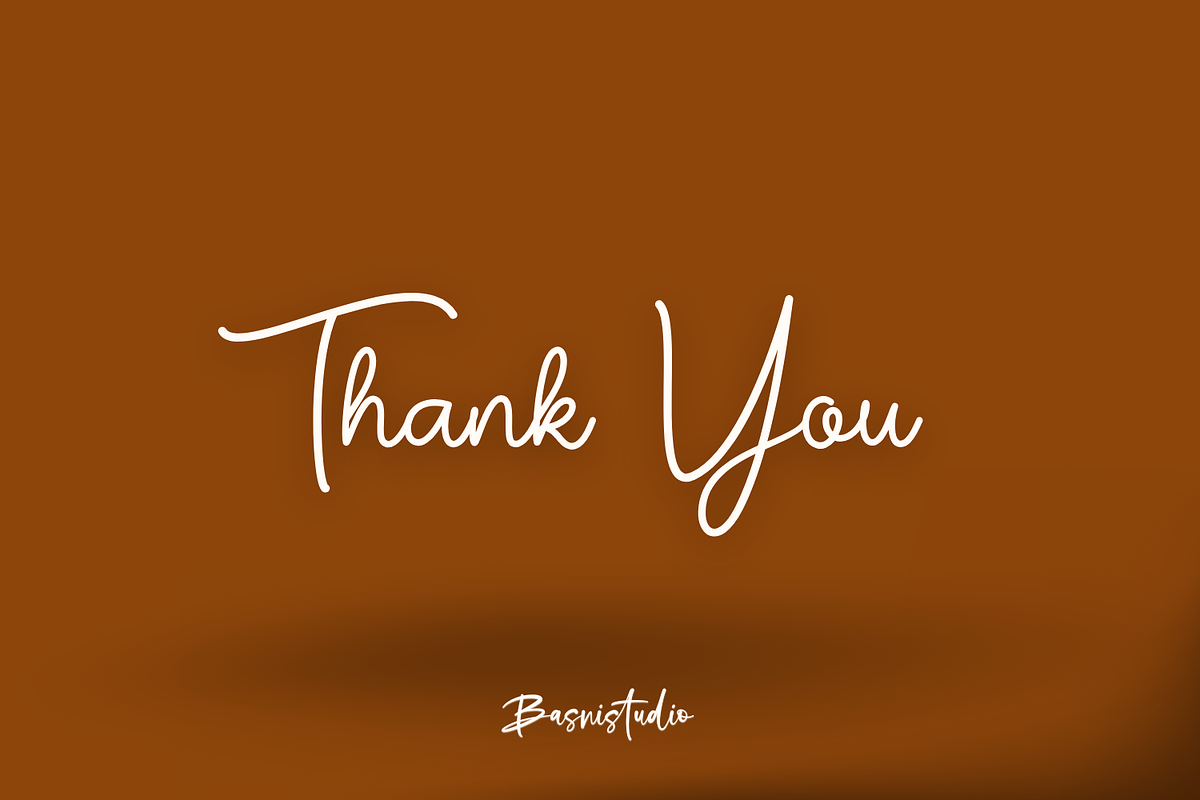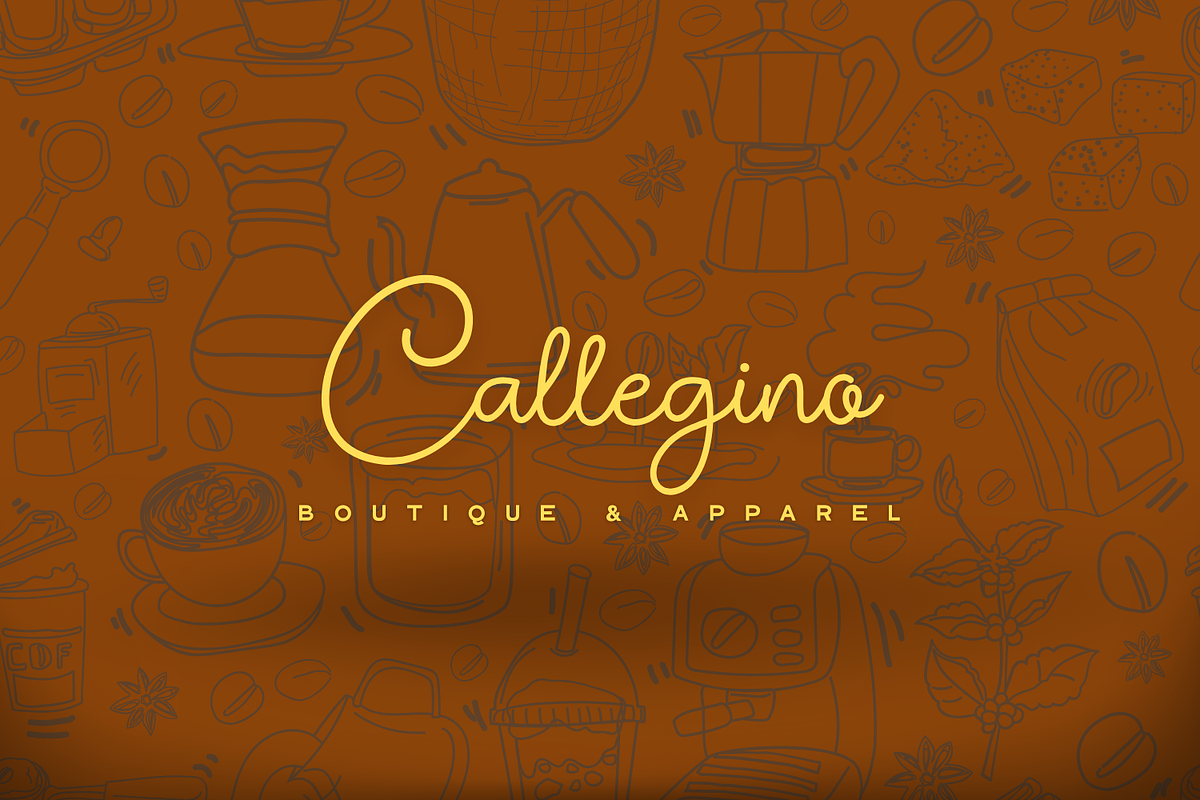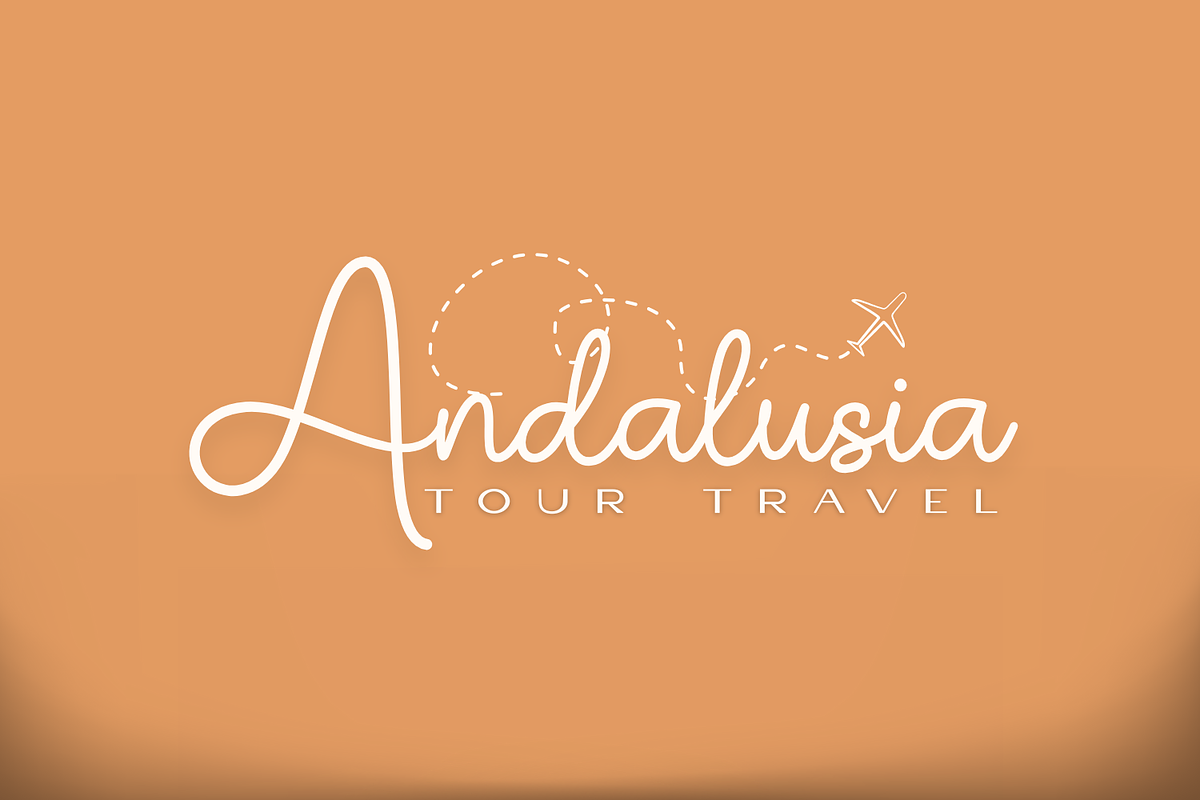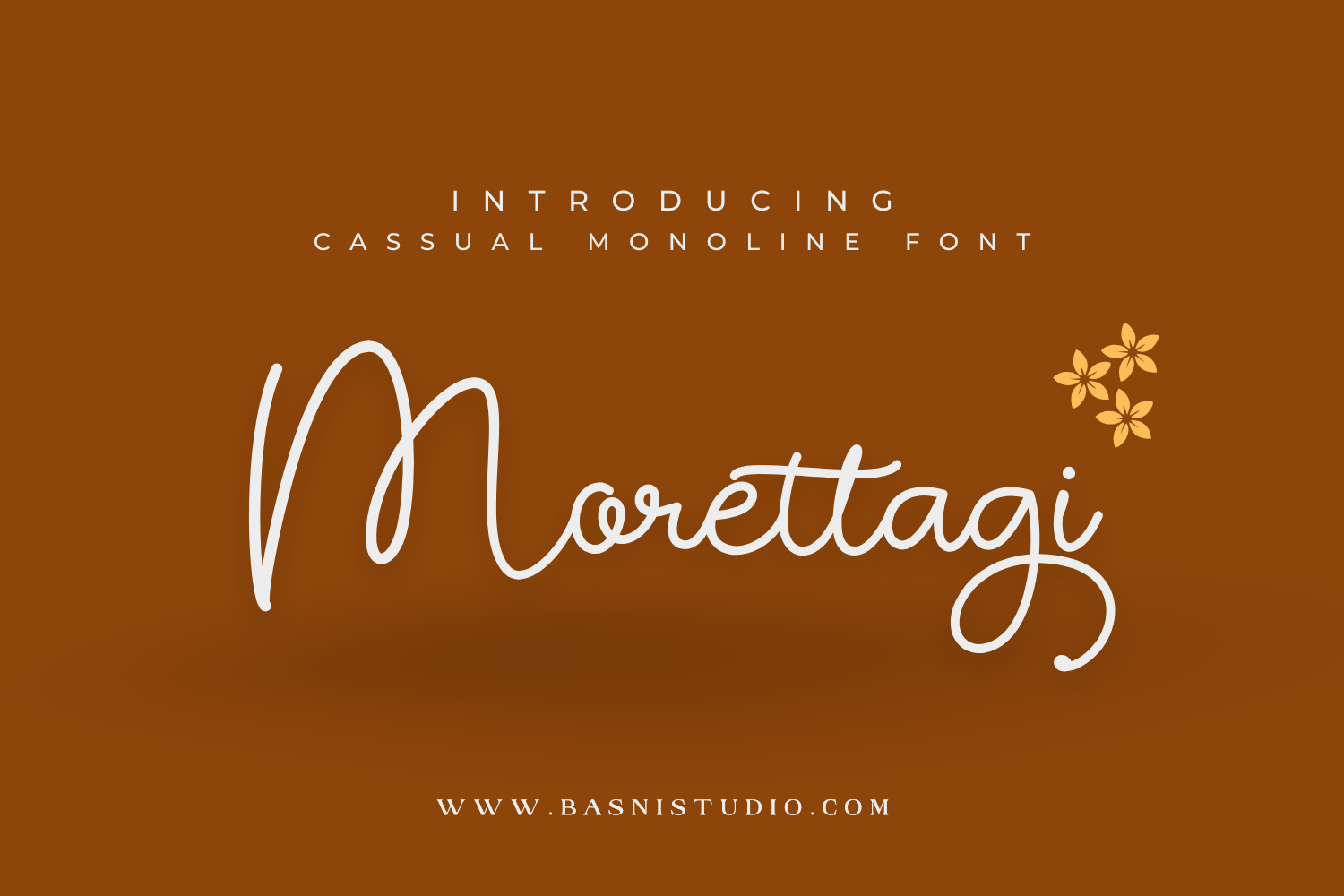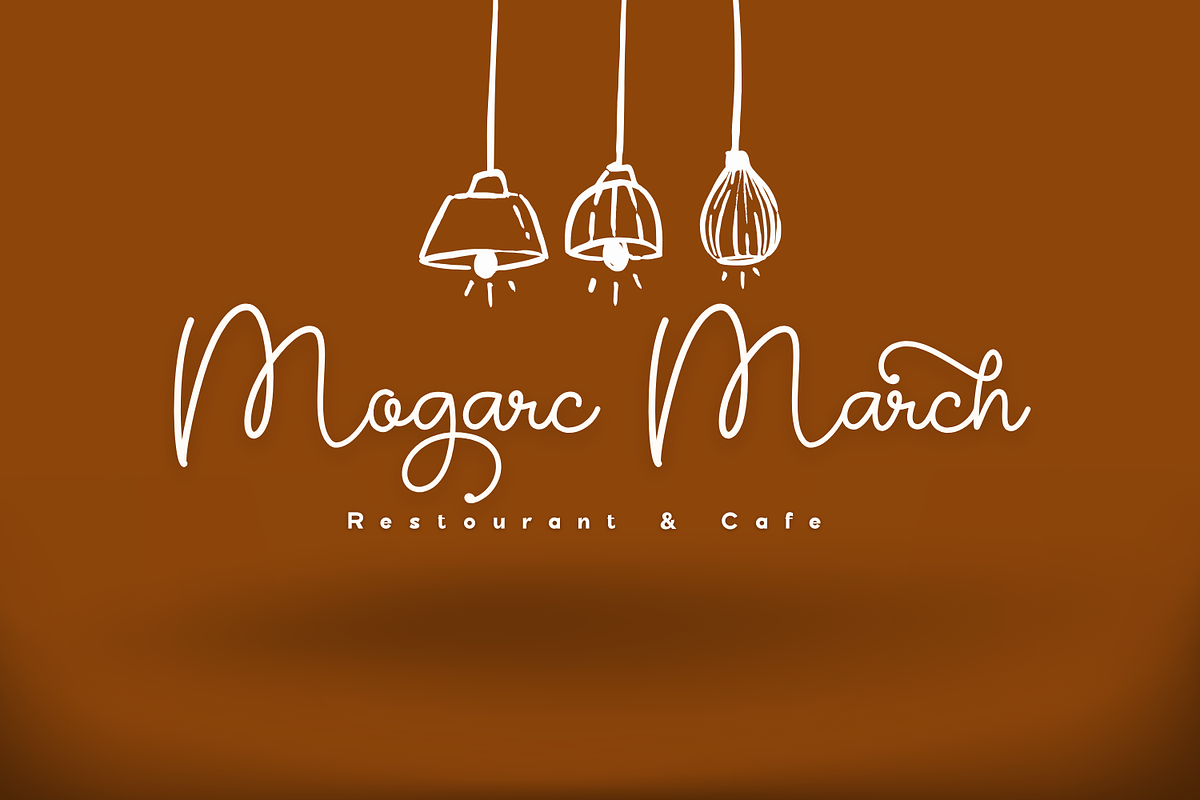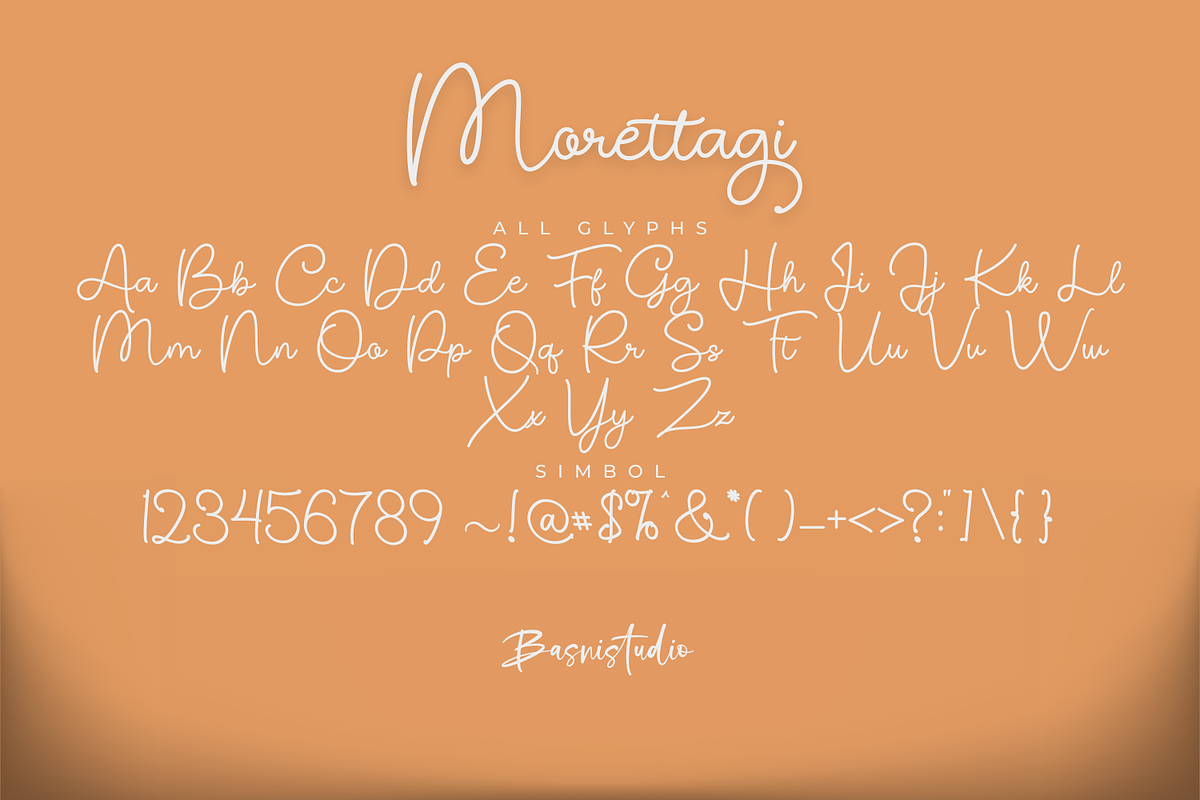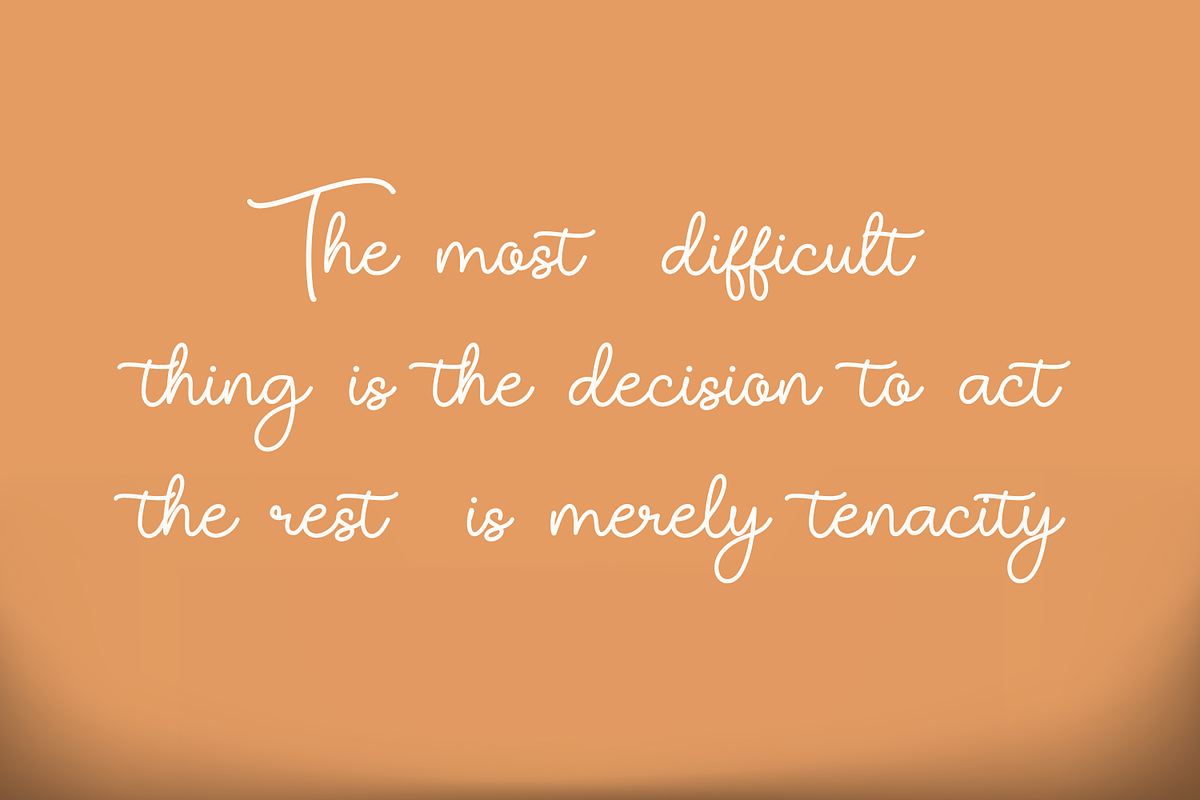
Morettagi Casual Monoline Font
✨ Introducing Morettagi – A Love Story in Every Stroke! ✨
Looking for the perfect font to add a touch of romance, elegance, and charm to your designs? Meet Morettagi, a beautifully crafted monoline script that flows effortlessly like a handwritten love letter.
💌 Why You’ll Love It: ✔ Smooth & Elegant: Delicate strokes that create a timeless, romantic feel. ✔ Perfectly Versatile: Ideal for wedding invitations, branding, love notes, and more. ✔ Handwritten Beauty: Designed to capture the warmth and authenticity of real handwriting. ✔ Multilingual Support: Because love knows no boundaries!
Whether you’re designing for Valentine’s Day, weddings, or heartfelt messages, Morettagi adds an intimate and sophisticated touch to every project.